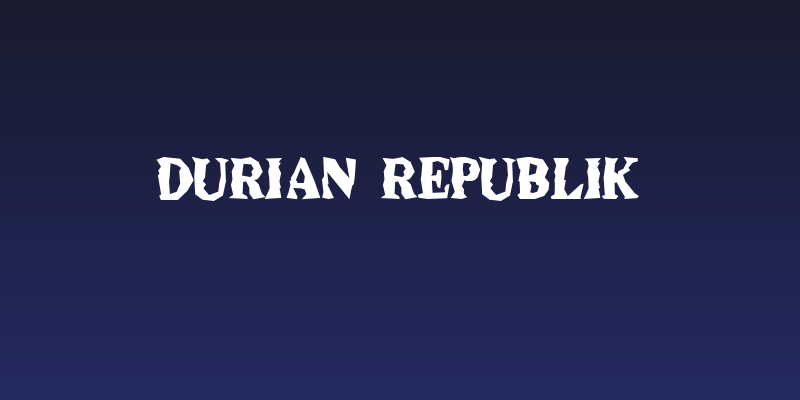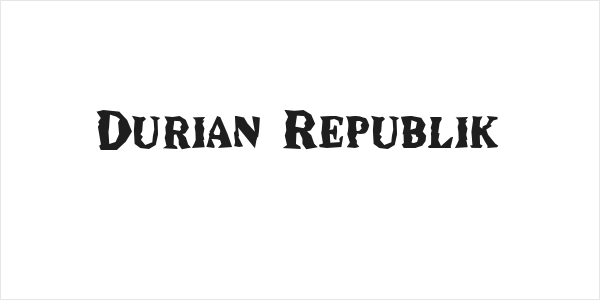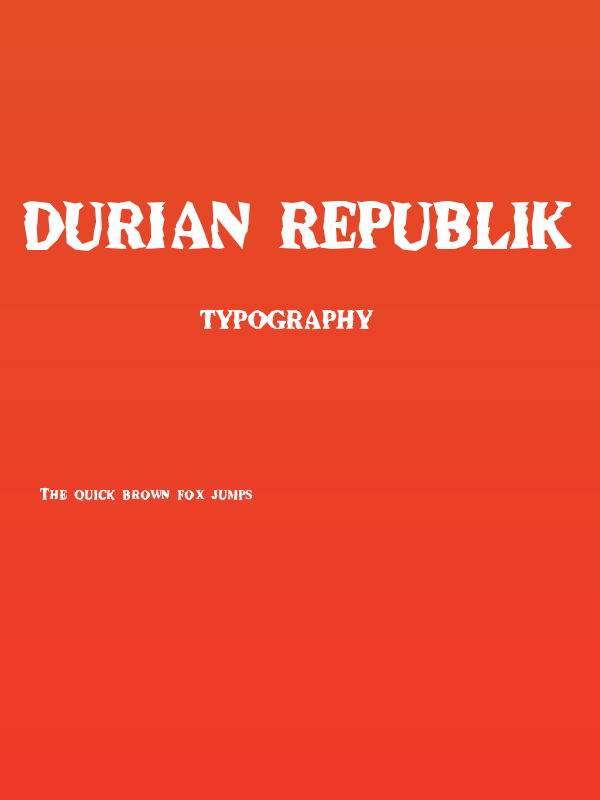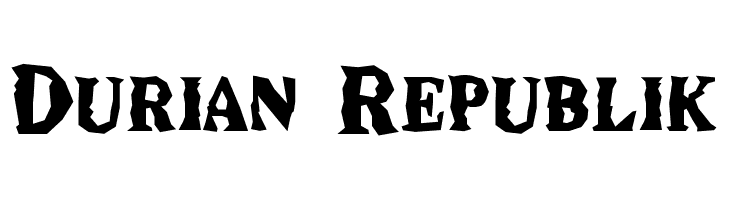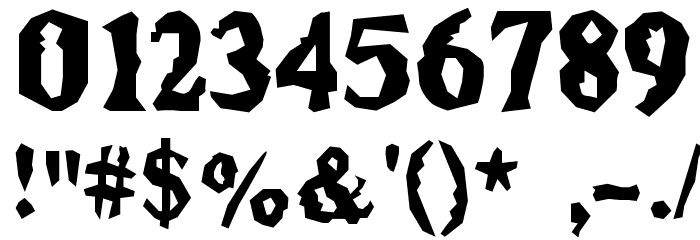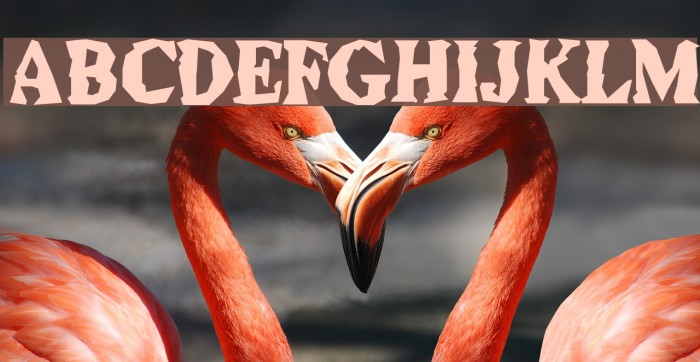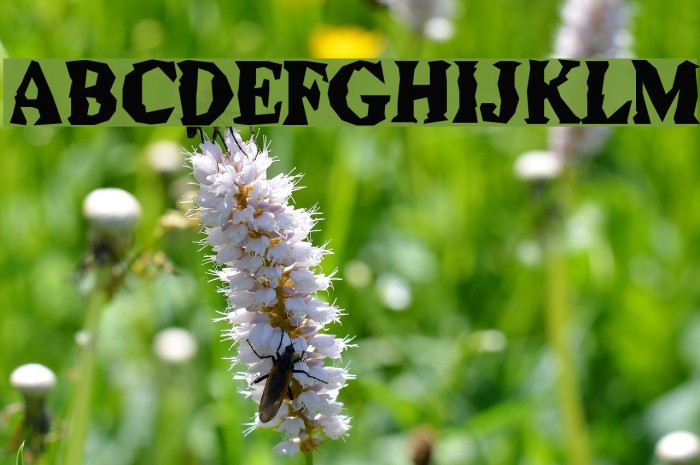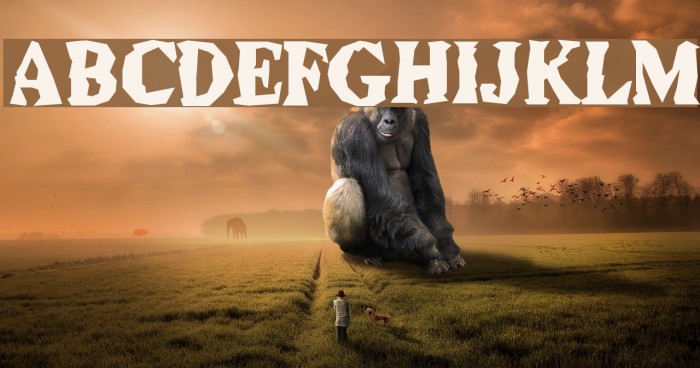
Durian Republik Font
Durian Republik Description
This font features a bold and jagged style, reminiscent of hand-carved or chiseled lettering. The characters exhibit a rough, uneven texture that gives them a dynamic and energetic appearance. The uppercase and lowercase letters maintain a consistent weight, with sharp angles and irregular edges, creating a sense of movement and intensity. The numbers and special characters follow the same rugged aesthetic, ensuring a cohesive look across all elements. This font is particularly striking and eye-catching, making it suitable for designs that require a strong visual impact.
| Proposed Projects | Ideal for posters, album covers, video game titles, and branding that requires a bold, dynamic appearance. |